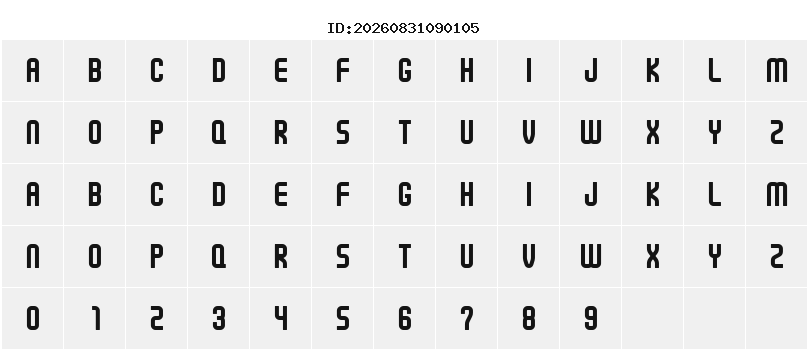
• Font Name: TekutekuAL
• Full Font Name: TekutekuAL
• PostScript Name: TekutekuAL
About TekutekuAL.ttf
TekutekuAL.ttf is a modern, elegant sans-serif font designed for ultimate readability and visual harmony. Perfect for branding, headlines, web design, and print materials.